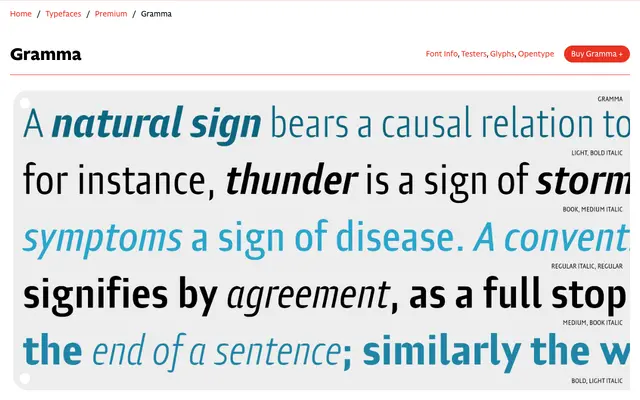
Gramma
A compact humanist sans by Riccardo Olocco with a large x-height and distinctive bird-beak terminals, designed for both headline and text use across print and screen.
Developed from 2009 through 2022, Gramma pairs a high x-height and tight proportions with squarish arches whose counters push outward, creating tension in the compressed letterforms. Its most individual feature is the bird-beak terminal, used consistently across c, e, f and s, which echoes the unconnected junctures found in a, b, d and g. Five weights from Light to Bold each have matching italics, and the family is available as a variable font with broad Latin language support.
A compact, large x-height sans with squarish arches and distinctive bird-beak terminals that recall calligraphic construction, placing it in the humanist sans tradition despite its tight, compressed proportions.